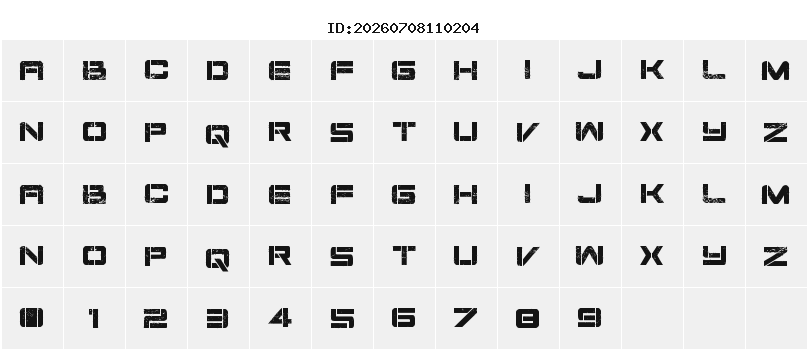
Damage Inc Preview
About Damage Inc.ttf
Damage Inc.ttf is a modern, elegant sans-serif font designed for ultimate readability and visual harmony. Perfect for branding, headlines, web design, and print materials.